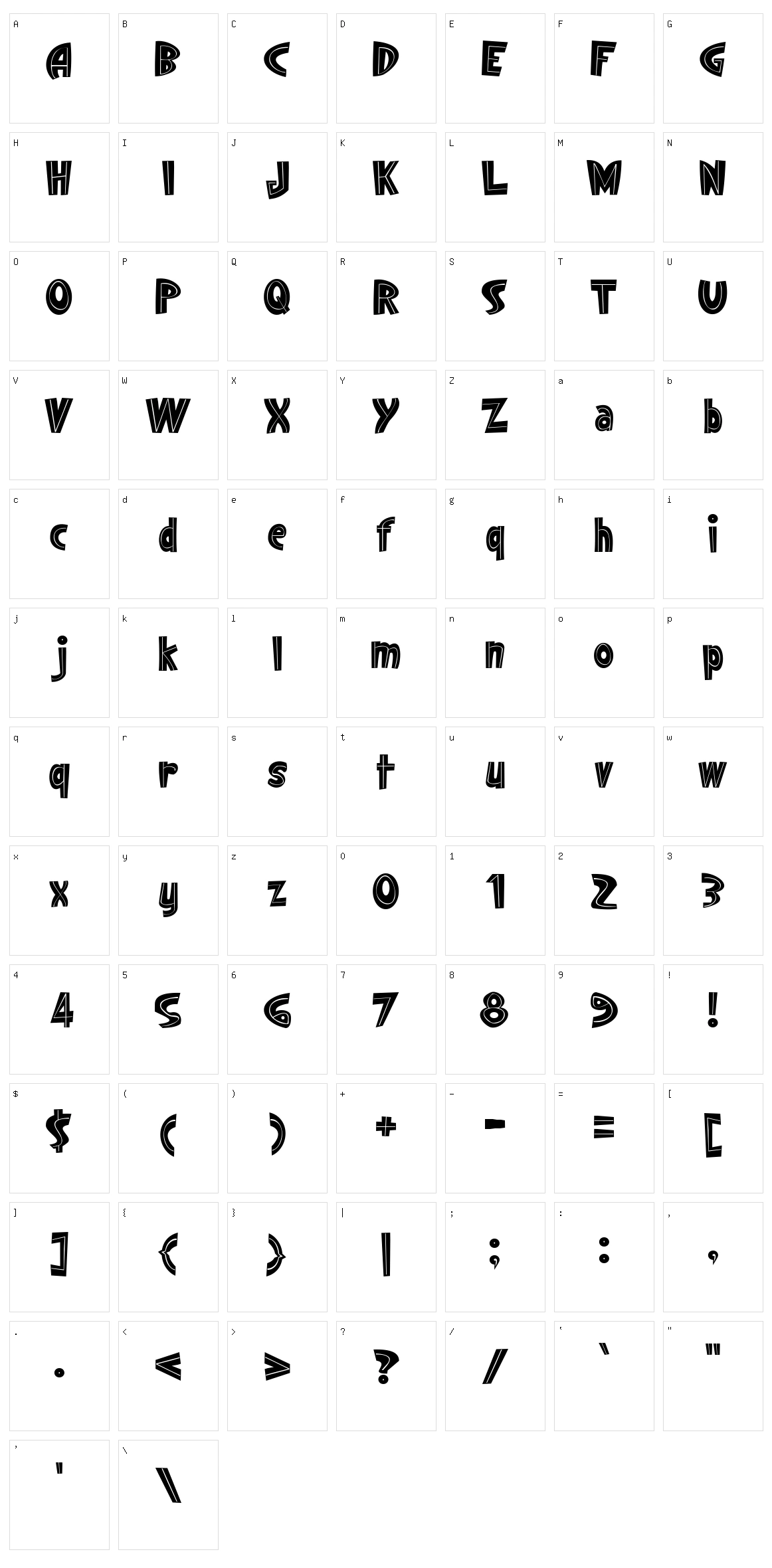
Font name: SINGAPORE (Ava Gardner Collection) - Latin Decorative font (versione 1.0)
Type designer: P. A. Vannucci
SINGAPORE font: direttamente dal film diretto da John Brahm,interpretato
da una indimenticabile AVA GARDNER,il font inedito per tutti gli estimatori
del film. Da notare il ritocco necessario in Photoshop per conferire, alla titolazione, l'originale bordatura.
SINGAPORE font: directly from the Best movie by John Brahm, with AVA GARDNER,
the original font for all lovers. Use ADOBE Photoshop for the original border from title.